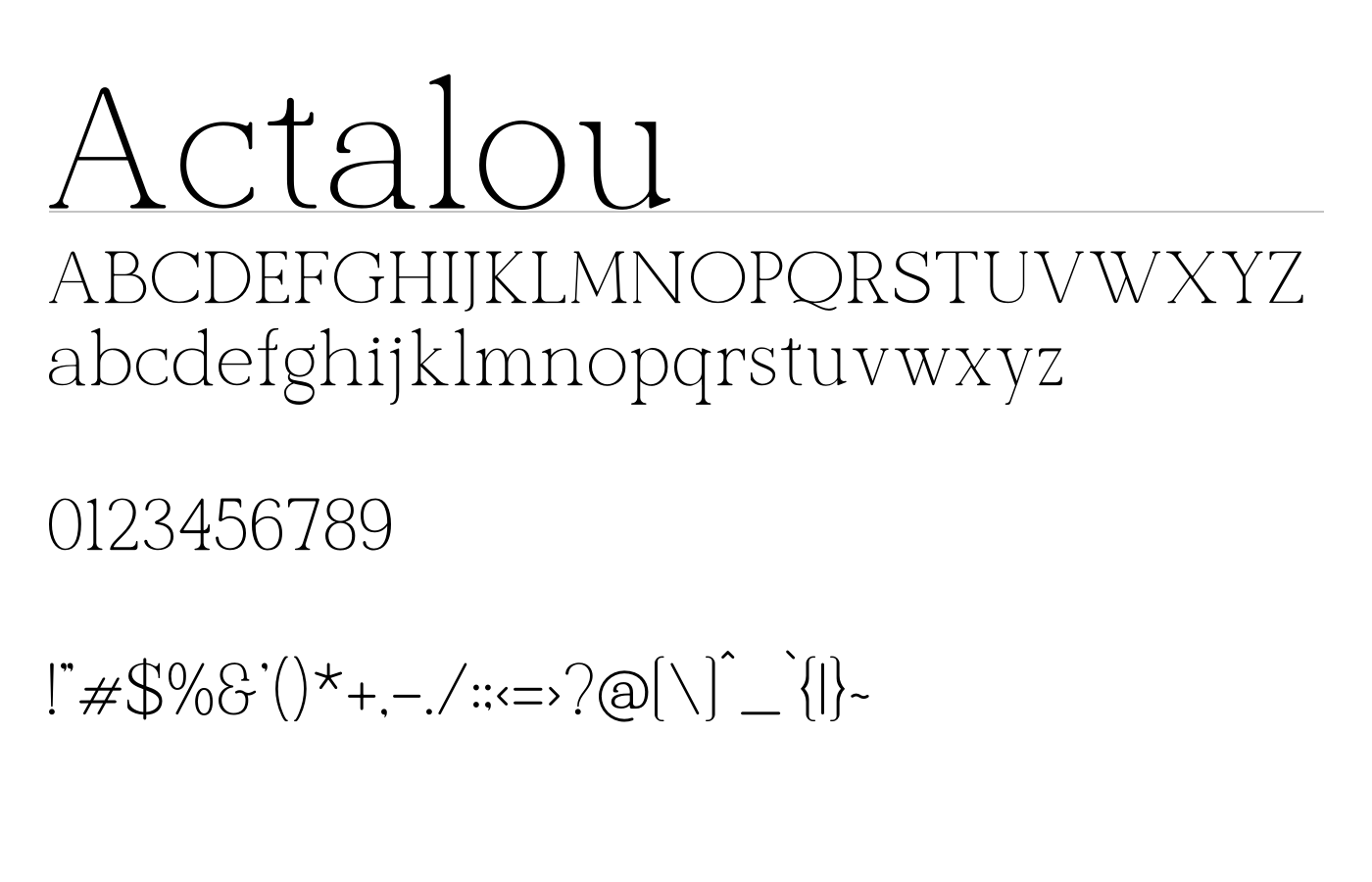
Actalou is an elegant serif typeface with a refined, high-contrast style that blends classic sophistication with modern clarity. Its slender, slightly condensed letterforms and delicate serifs give it a graceful, luxurious feel, making it ideal for upscale branding, editorial design, and fashion-related projects. This font shines in headlines and display settings where a touch of elegance and timeless charm is desired.
Actalou Font
About Actalou Font
| Designer | Hilman Ruslan |